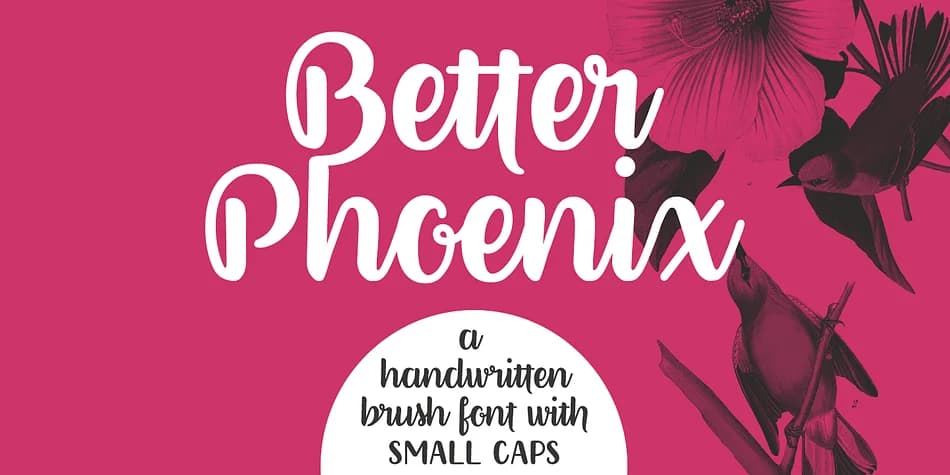
Better Phoenix by Ana's Fonts is a brushed script that balances polish with genuine personality. Built from hand-drawn strokes, it delivers smooth letterforms and a clean internal structure while retaining the warmth and natural movement you find in authentic handwriting. The full collection includes more than 400 glyphs, with complete coverage of uppercase and lowercase letters, numerals, accents, and punctuation marks, plus small caps, contextual and stylistic alternates, swashes, and ligatures, giving you significant flexibility in how you customize character interaction and typographic flow throughout any layout.
This typeface excels on wedding invitation suites where you need sophistication without rigid formality, and handles small-business product labels, artisan packaging design, and hand-lettered greeting card projects with equal confidence and ease. Its strong legibility makes it more than capable of anchoring editorial spreads, business presentations, and custom logotype work where a script's natural warmth can enhance readability rather than compete with it. Crafters and cutting-machine users particularly appreciate it for one straightforward reason: those smooth strokes render cleanly at virtually any scale without the wobbly lines that can cause trouble during precision cuts or sticker production runs.
Better Phoenix Font is a script font that shines as a display or heading face. Pair it with a clean sans-serif or serif font for body text β the contrast creates a clear hierarchy while the two styles stay balanced and easy to read.
Better Phoenix Font
by Ana's Fonts